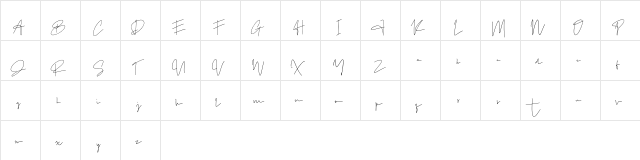
Author Signature Thin
Design Context for Author Signature Typeface
Author Signature is a composed and adaptable typeface that performs quietly and consistently across a wide range of design contexts. Its slender proportions lend an understated elegance to any composition.